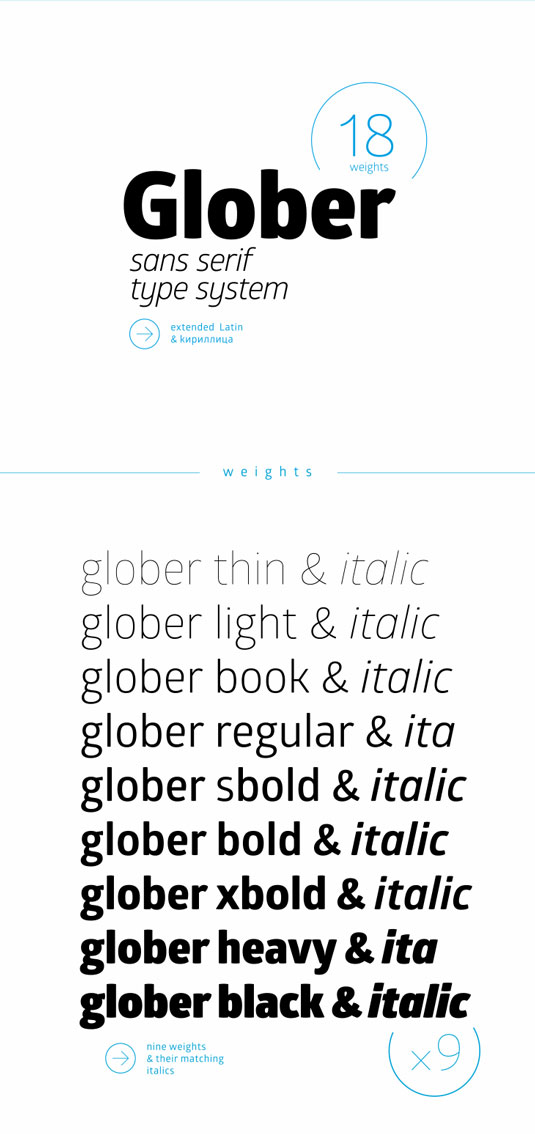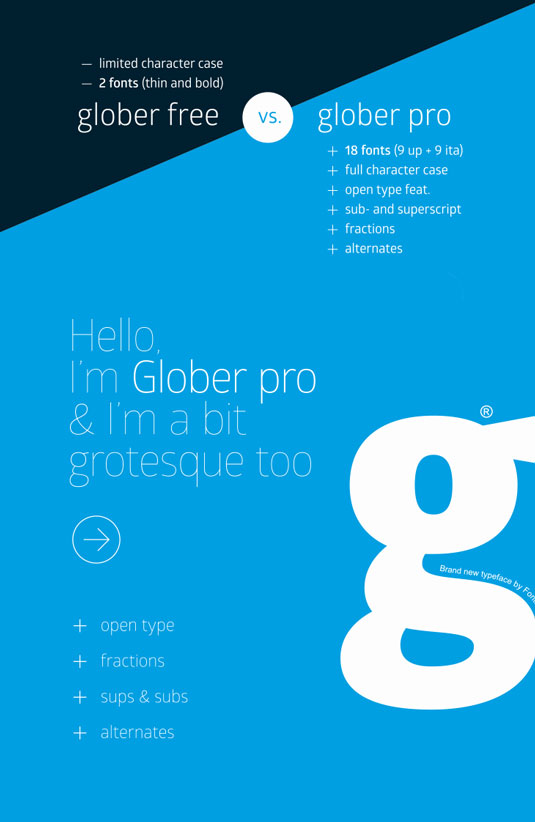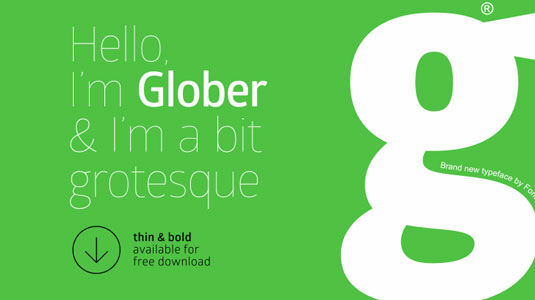
Font of the day: Glober
Glober from Fontfabric
Today's typeface of choice is Glober. Available from font foundry Fontfabric, it is described as 'inspired by the classic grotesque typefaces – Glober has his own unique style in expressed perfect softened geometric forms'.